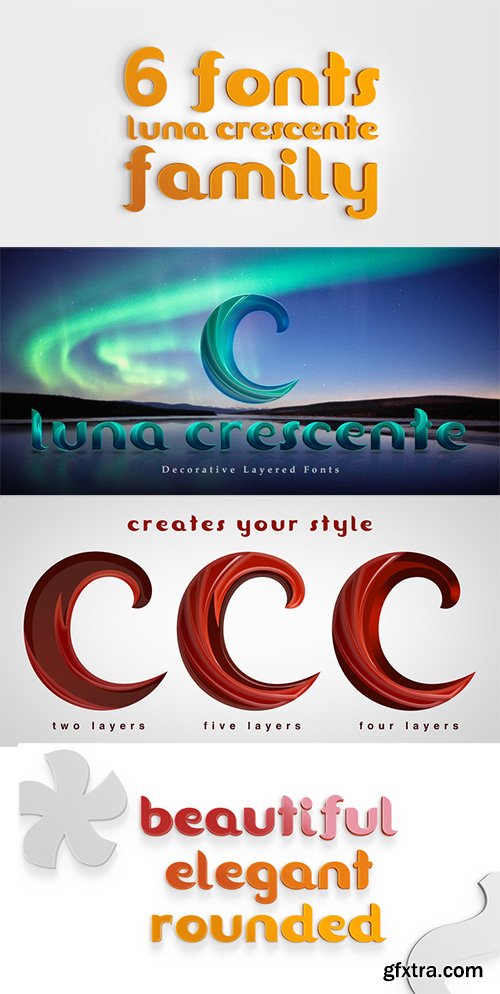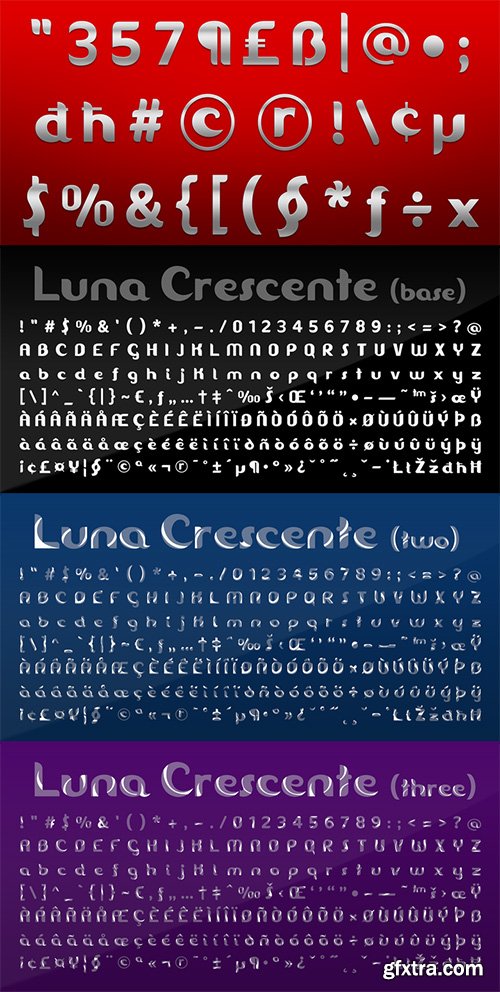
Luna Crescente Font Family - 6 Fonts 110$
LUNA CRESCENTE base, color 1, color 2, color 3, color 4, color 5, is an 6 font system that can be layered in different ways to create infinite title effects used commonly in poster and 3D logo design. Luna Cresente’s layer combinations give you complete control in producing styles like, 3D, beveled and layered colors. It can be used alone and/or in layered and allows you adjust leading and kerning. Each font contains the similar metrics, so when your title is set, copy and paste-in-place to create layers of different styles to build out your desired effect.Luna Crescente works great in any graphics application that allows you to utilize layers or 3D effects.